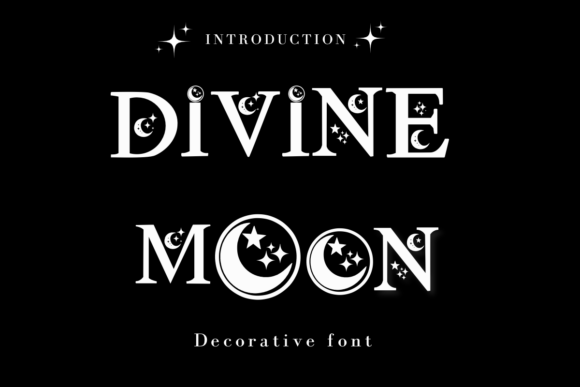
Divine Moon Font: A Celestial Decorative Font for Dreamers and Designers
Are you looking for a font that can add a touch of magic to your designs? Look no further than the Divine Moon font, a stunning decorative font inspired by the beauty of the night sky. In this article, we’ll explore the features and benefits of this enchanting font, and how it can elevate your designs to new heights.
Introducing Divine Moon: A Font Inspired by the Night Sky
Divine Moon is a decorative font that combines classic serif structure with delicate star and moon elements, creating a sense of elegant mysticism. Each letter is crafted with attention to cosmic harmony, with stars glimmering inside letterforms, crescent moons peeking from curves, and subtle contrasts that make each letter dance with light and shadow. The result is a font that feels as if it’s been kissed by stardust, glowing softly with moonlit charm and celestial balance.
Elegant and Enchanting: The Design Aesthetic of Divine Moon
The design of Divine Moon is both mystical and refined, blending vintage typography with astral artistry. Every character is crafted with attention to detail, with a focus on creating a sense of cosmic harmony. The font features a range of intricate details, including:
- Stars and moons subtly integrated into the letterforms
- Crescent moons peeking from curves and strokes
- Subtle contrasts that create a sense of light and shadow
- A classic serif structure with a touch of elegance
Perfect for Every Magical Creation
Divine Moon is a versatile font that can be used for a wide range of creative projects. Whether you’re designing a logo, invitation, tarot card, book cover, or apparel, this font is sure to add a touch of magic to your work. Here are just a few examples of how you can use Divine Moon:
- Logos and branding identities for holistic brands
- Invitations for moonlit events and parties
- Tarot designs and mystical-themed projects
- Book covers and typography for fantasy and science fiction novels
- Apparel and accessories with a celestial theme
- Moon-inspired decor and home furnishings
Bring the Universe to Your Words
With Divine Moon, you can bring the magic of the universe to your words. This font is perfect for designers and writers who want to add a touch of fantasy and elegance to their work. Whether you’re creating a branding identity, designing a poster, or writing a novel, Divine Moon can help you to:
- Create a sense of wonder and enchantment
- Add a touch of magic to your designs
- Evoke the mystery and beauty of the night sky
- Stand out from the crowd with a unique and eye-catching font
Design with Purpose and Imagination
Divine Moon is more than just a font – it’s a tool for creative expression. With this font, you can design with purpose and imagination, bringing your ideas to life in a way that’s both elegant and enchanting. Whether you’re a designer, writer, or artist, Divine Moon can help you to:
- Tap into your creative potential
- Explore new ideas and inspiration
- Create something truly unique and original
- Bring your vision to life with a font that’s both beautiful and versatile
Divine Moon is a truly unique and enchanting font that’s perfect for anyone who wants to add a touch of magic to their designs. With its elegant and refined design aesthetic, this font is sure to inspire your creativity and bring your ideas to life. Whether you’re a designer, writer, or artist, Divine Moon is a must-have font that’s sure to become a favorite in your creative toolkit.
What is Divine Moon font?
Divine Moon is a decorative font inspired by the beauty of the night sky, featuring a classic serif structure with delicate star and moon elements.
What can I use Divine Moon font for?
Divine Moon is a versatile font that can be used for a wide range of creative projects, including logos, invitations, tarot designs, book covers, apparel, and more.